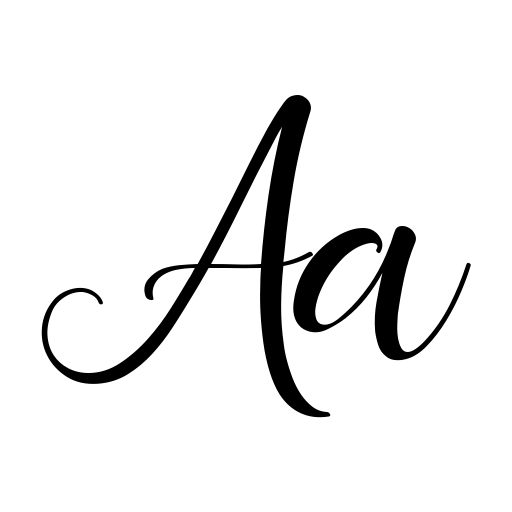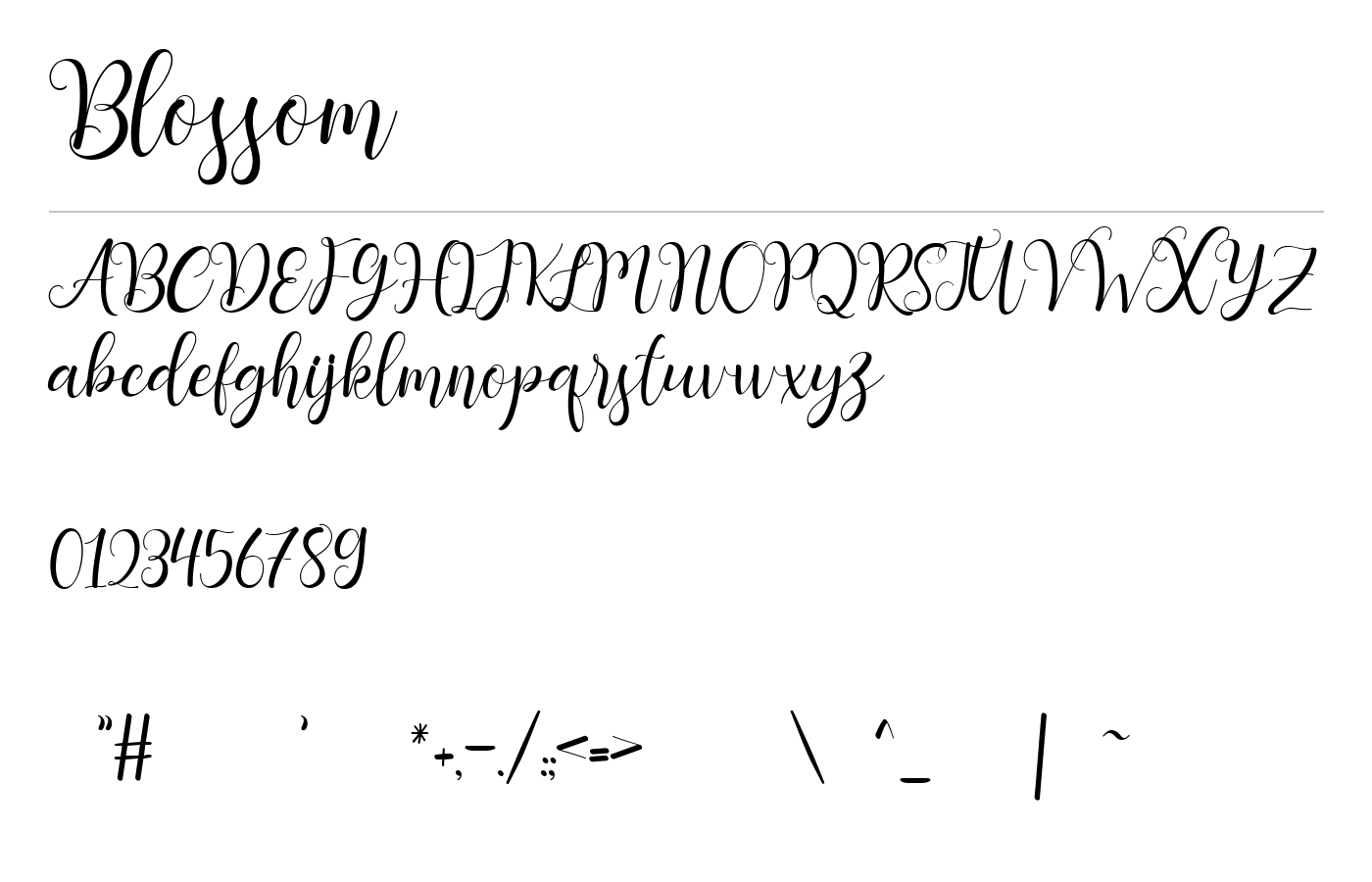
Blossom is an elegant script font featuring delicate, flowing strokes with high contrast between thick and thin lines, giving it a graceful and refined appearance. Its stylish uppercase letters are adorned with sophisticated curls and swashes, making it ideal for luxury branding, wedding invitations, and feminine product packaging where a touch of charm and sophistication is desired.
About Blossom Font